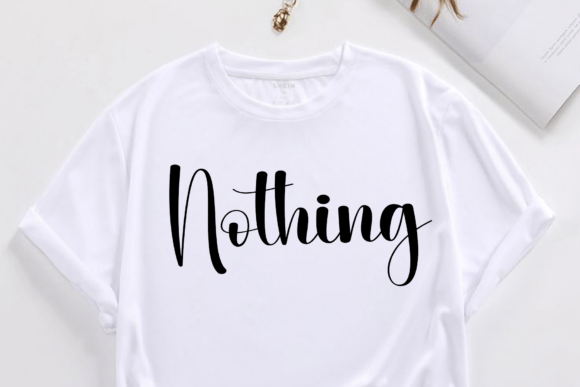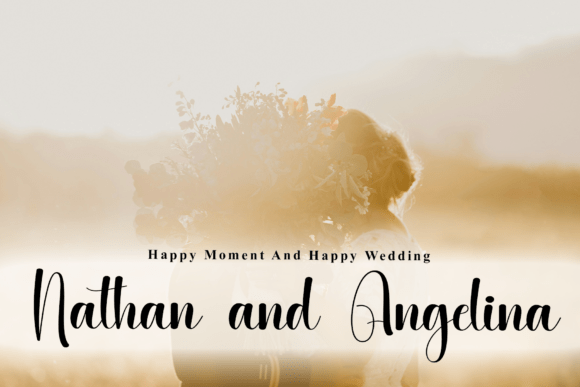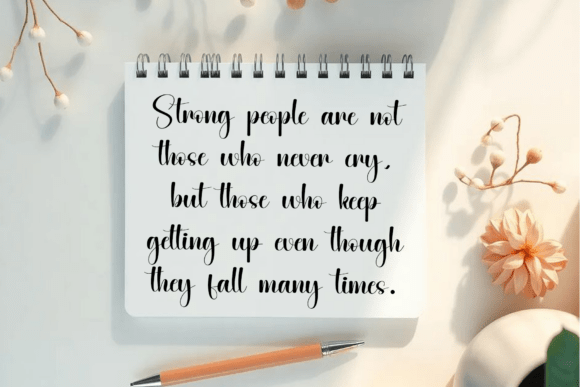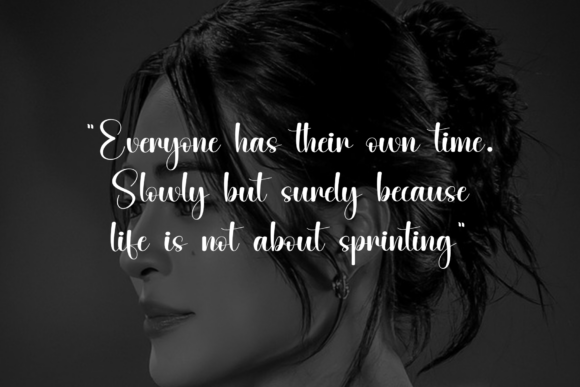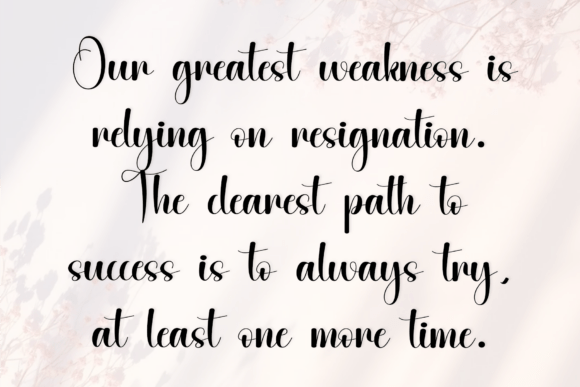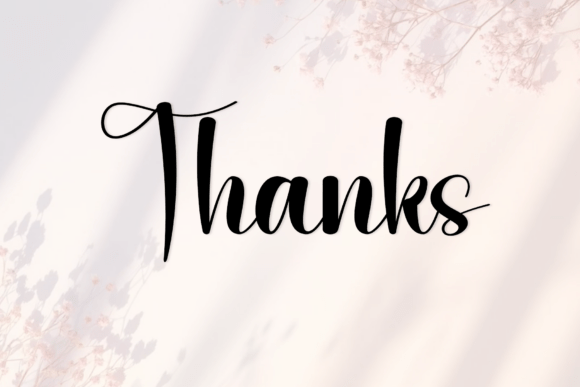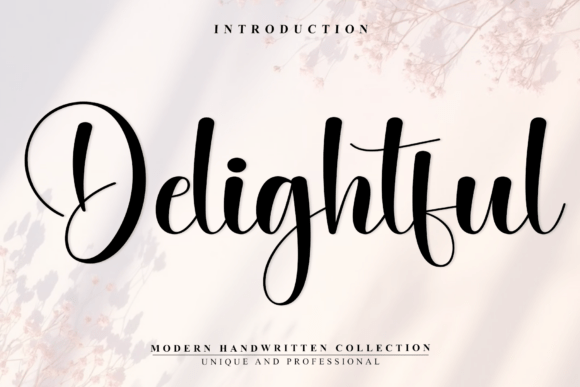
Introducing the Delightful Font: Elevate Your Designs with Effortless Elegance
In the world of typography, a font can make all the difference in conveying the right tone and aesthetic to your design. For those seeking a modern, handwritten look that exudes both professionalism and charm, the Delightful font is an exceptional choice. This beautiful, semi-connected script typeface is meticulously crafted to bring a sense of effortless grace and clarity to a wide range of projects.
Characteristics of the Delightful Font
The Delightful font stands out with its smooth, rounded strokes and a flowing, semi-connected style. This unique combination creates a look that feels both intimate and highly refined, making it perfect for designs that require a personal touch with a professional edge. The generous weight of the font ensures excellent readability, while the subtle, elongated flourishes add a touch of sophistication.
One of the distinctive features of the Delightful font is the elegant curl on the initial ‘D’, which sets the tone for the rest of the text. These flourishes are tastefully done, enhancing the overall elegance of the font without overpowering the content. This balance of simplicity and sophistication makes the Delightful font versatile and suitable for various applications.
Perfect for High-End Designs
The Delightful font is particularly well-suited for high-end projects where conveying luxury and quality is essential. Here are some ideal applications for this beautiful typeface:
- High-End Wedding Invitations: The elegant and refined appearance of the Delightful font makes it an excellent choice for wedding invitations. It sets the tone for a sophisticated and memorable event.
- Gourmet Packaging: For brands that specialize in gourmet foods, wines, or other luxury goods, the Delightful font can add a touch of class and sophistication to product packaging.
- Lifestyle Blog Headers: Bloggers focusing on lifestyle, fashion, or beauty can enhance their site’s aesthetic with the Delightful font, creating a warm and inviting atmosphere for their readers.
- Feminine Branding: The font’s feminine and elegant qualities make it a great fit for brands targeting a female audience or those that wish to convey a sense of grace and style.
Why Choose the Delightful Font?
Choosing a font for your design project involves considering legibility, aesthetic appeal, and how well it aligns with your brand’s message. The Delightful font checks all these boxes and more:
- Unique and Professional: It offers a unique look that stands out from more common fonts, yet remains professional and suitable for high-end projects.
- Versatile: Its elegant and semi-connected script style allows it to be used across a variety of design applications, from digital to print.
- Easy to Read: Despite its elegant appearance, the Delightful font maintains excellent readability, making it practical for use in both headings and body text.
The Delightful font is a stunning addition to any designer’s toolkit. Its blend of modernity, elegance, and professionalism makes it an ideal choice for those looking to add a touch of sophistication and charm to their projects. Whether you’re working on high-end wedding invitations, gourmet packaging, or lifestyle blog headers, the Delightful font is sure to elevate your designs and convey the quality and elegance you envision.
Discover the potential of the Delightful font in your next project. With its effortless grace and professional clarity, it’s poised to become your go-to choice for creating beautiful, impactful designs.